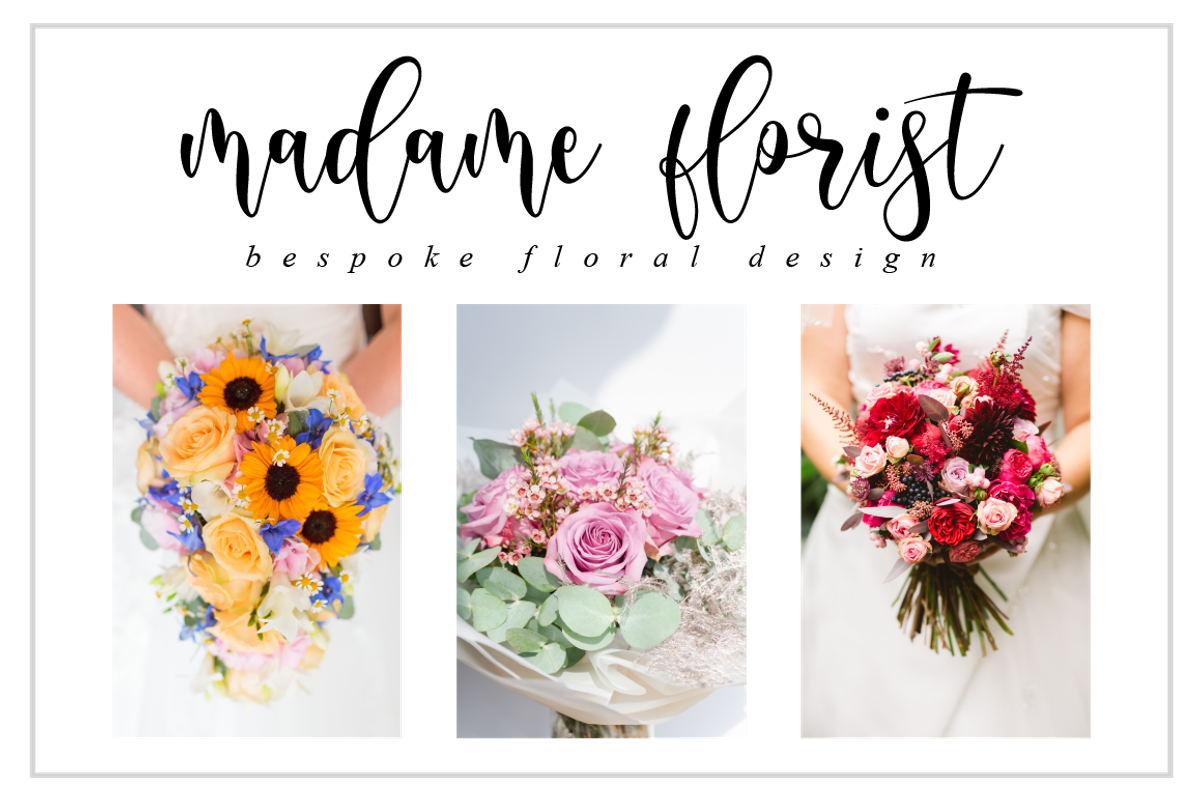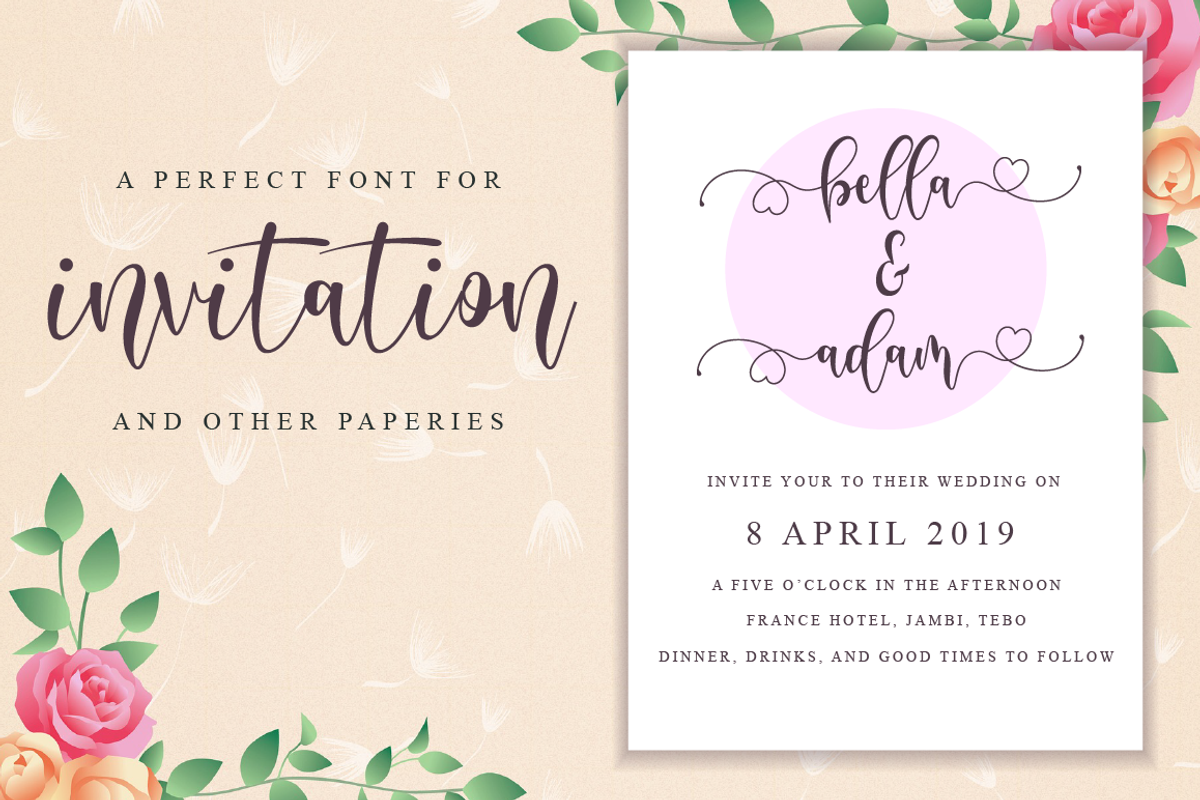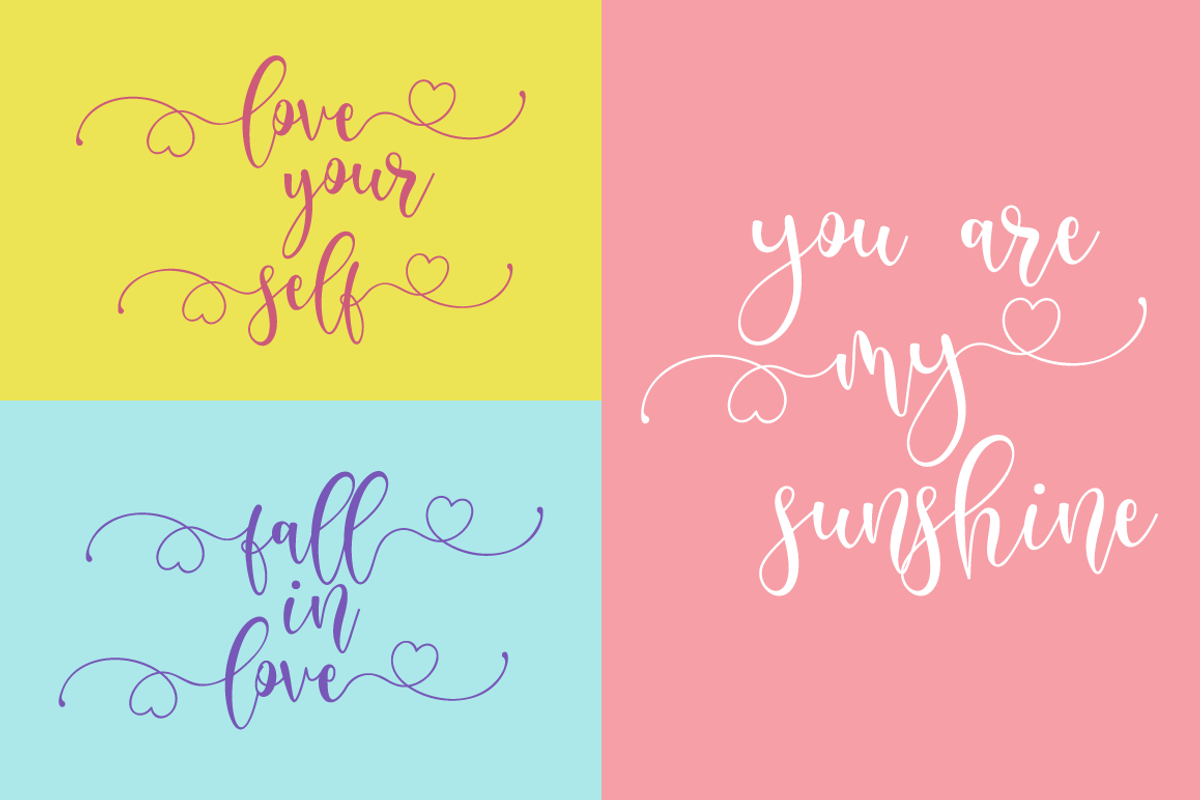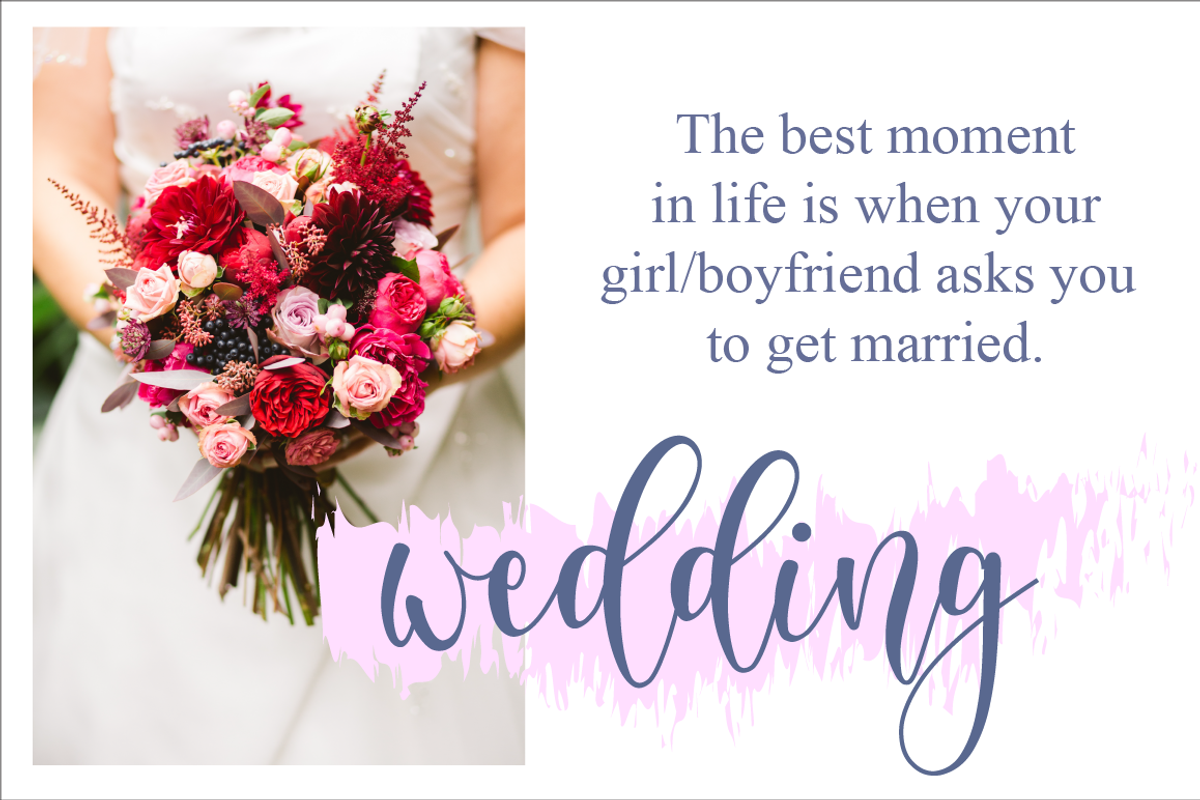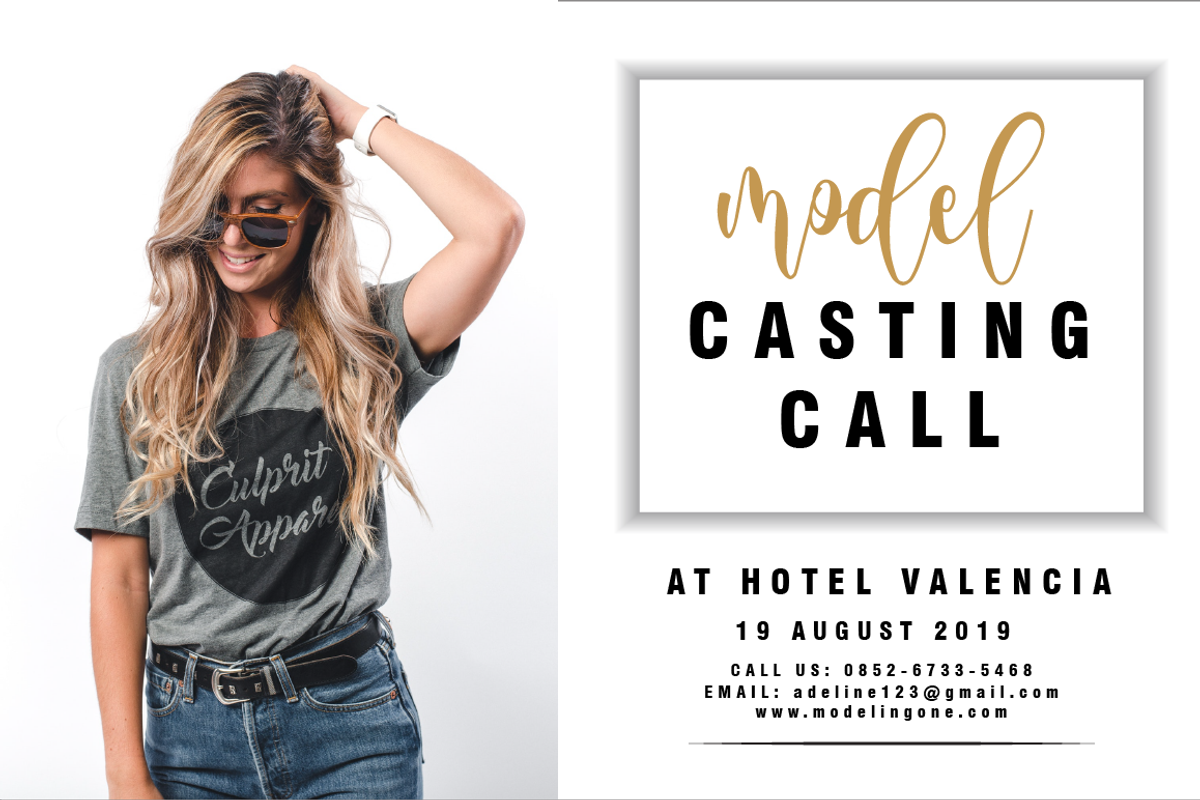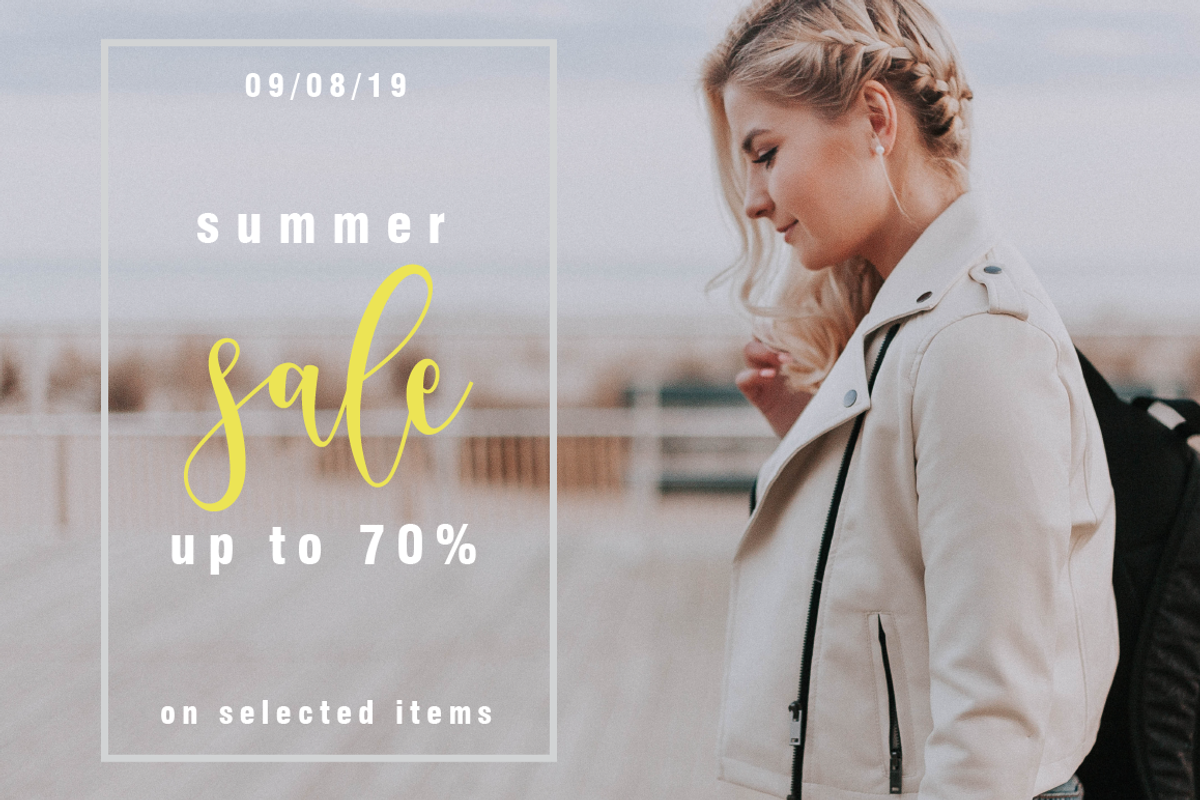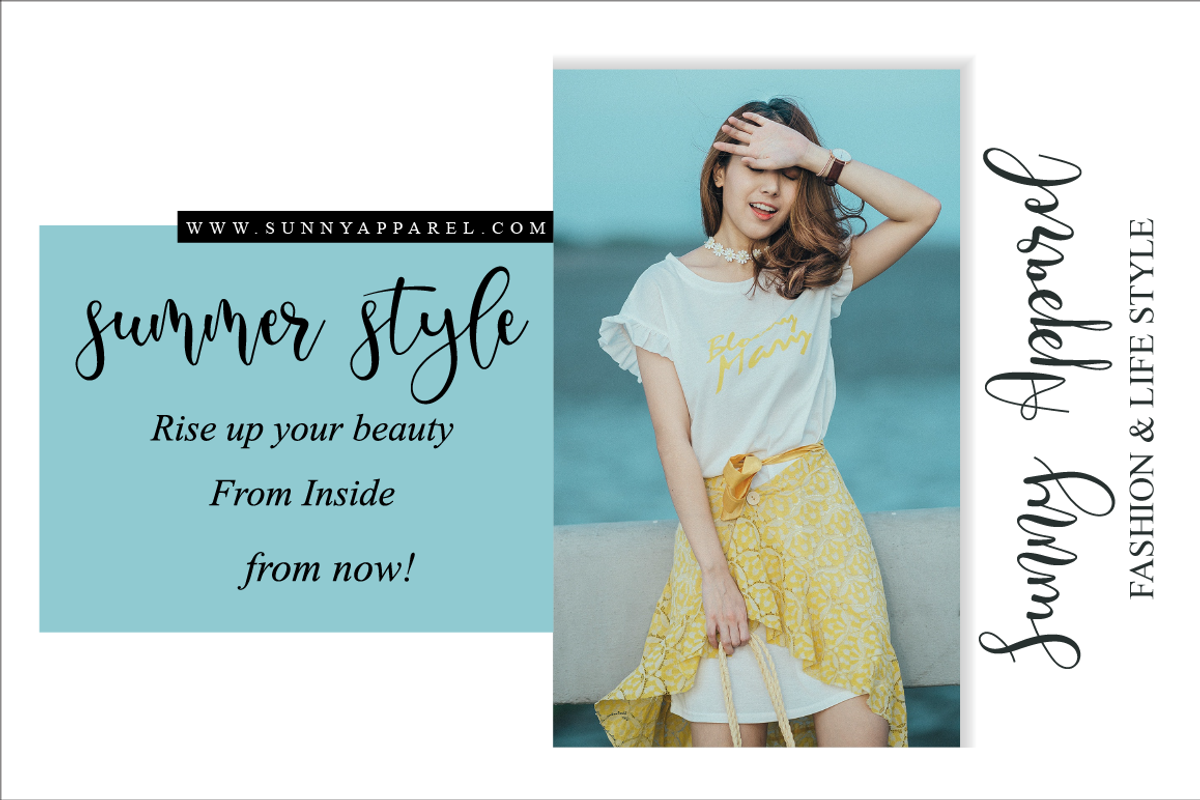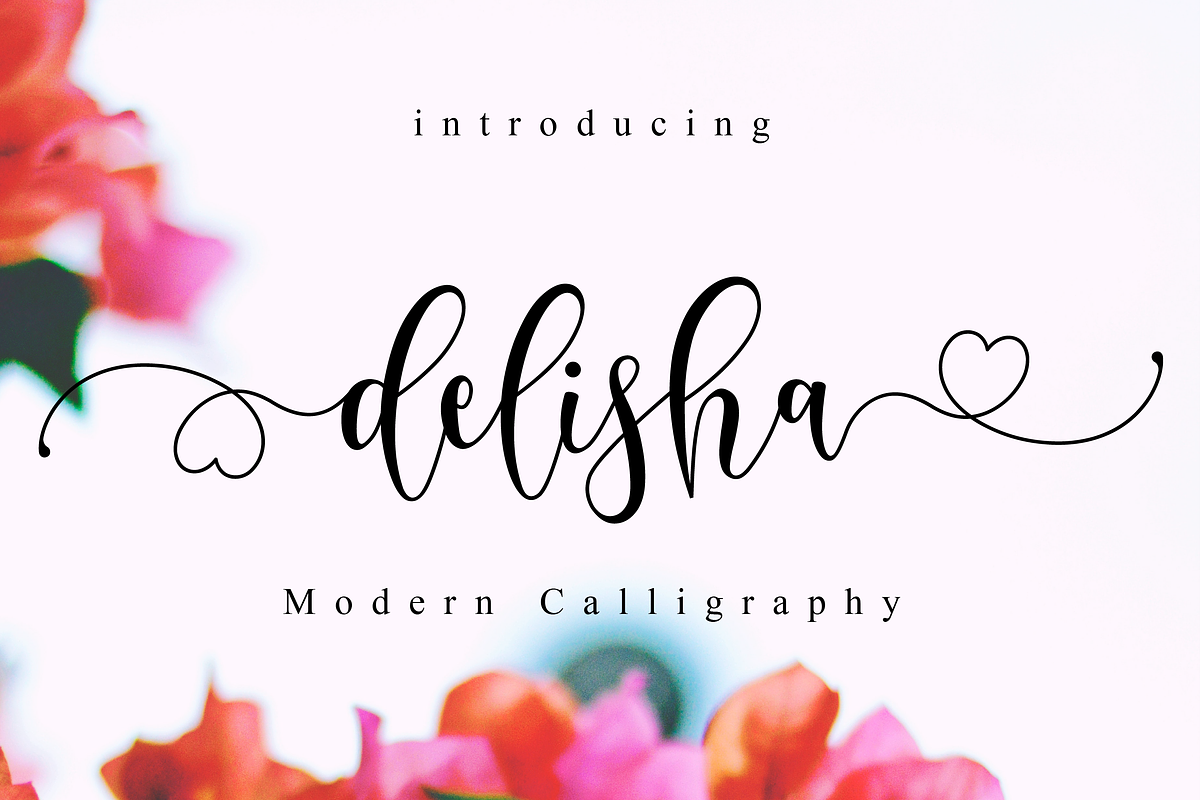
Delisha // Lovely Script Font
The Delisha is a beautiful script font. It has a classy, elegant, and modern look which can be used for logos, branding, invitations, stationary, wedding designs, social media posts, and every other design which needs a handwritten touch.
Why Delisha // Lovely Script Font is worth a look
Delisha // Lovely Script Font by Nissa Studio fits naturally into Branding, posters, packaging, typography.